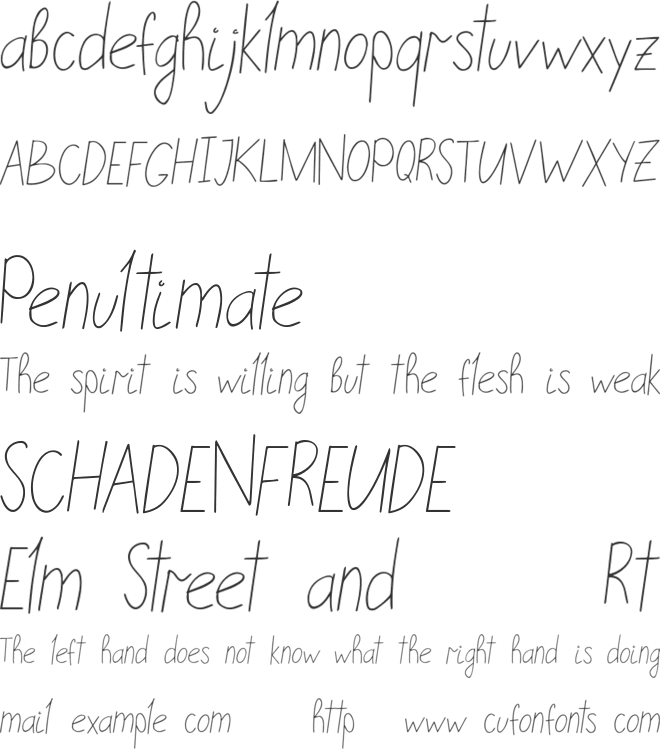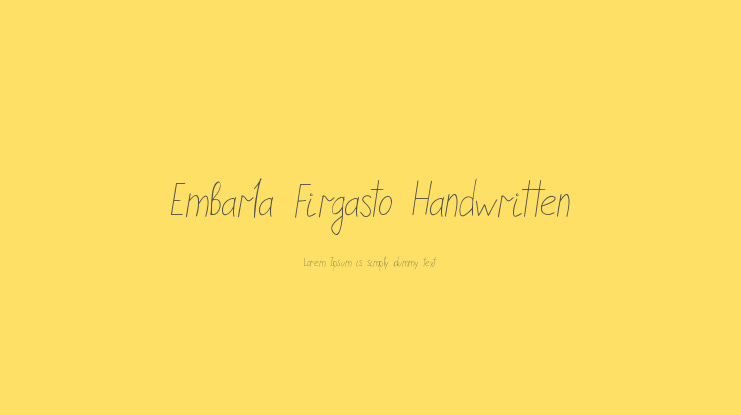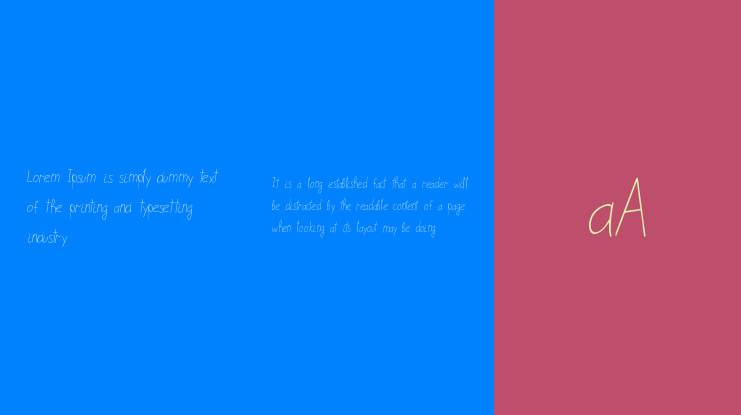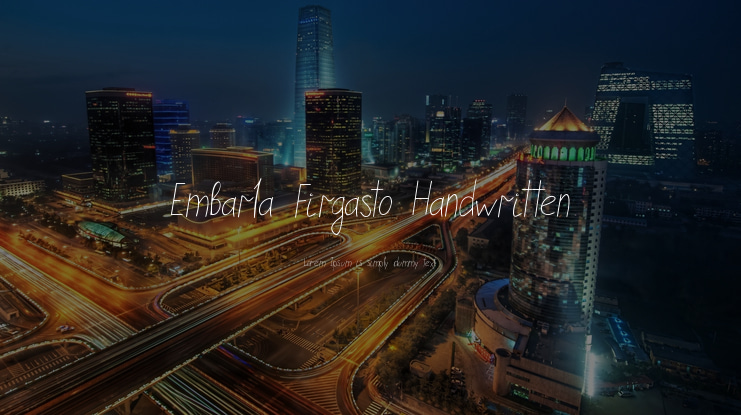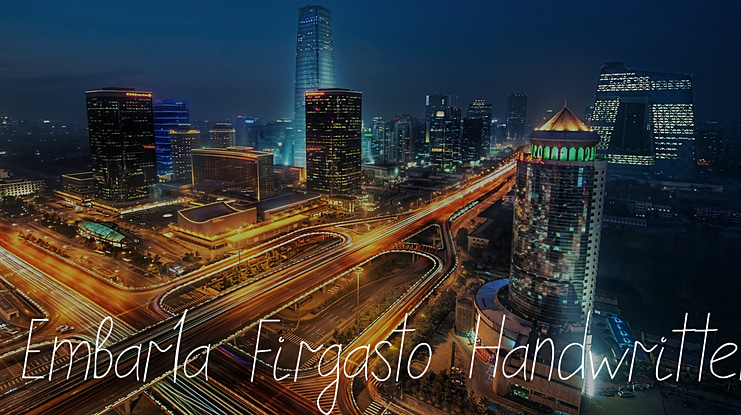
Embarla Firgasto Handwritten Font
Take look at Embarla Firgasto - my new enchanting family of four fonts. They pair beautifully together in all kinds of applications.
Full version of Embarla Firgasto comes with uppercase, lowercase, standard punctuation and special letters for most of the European languages.